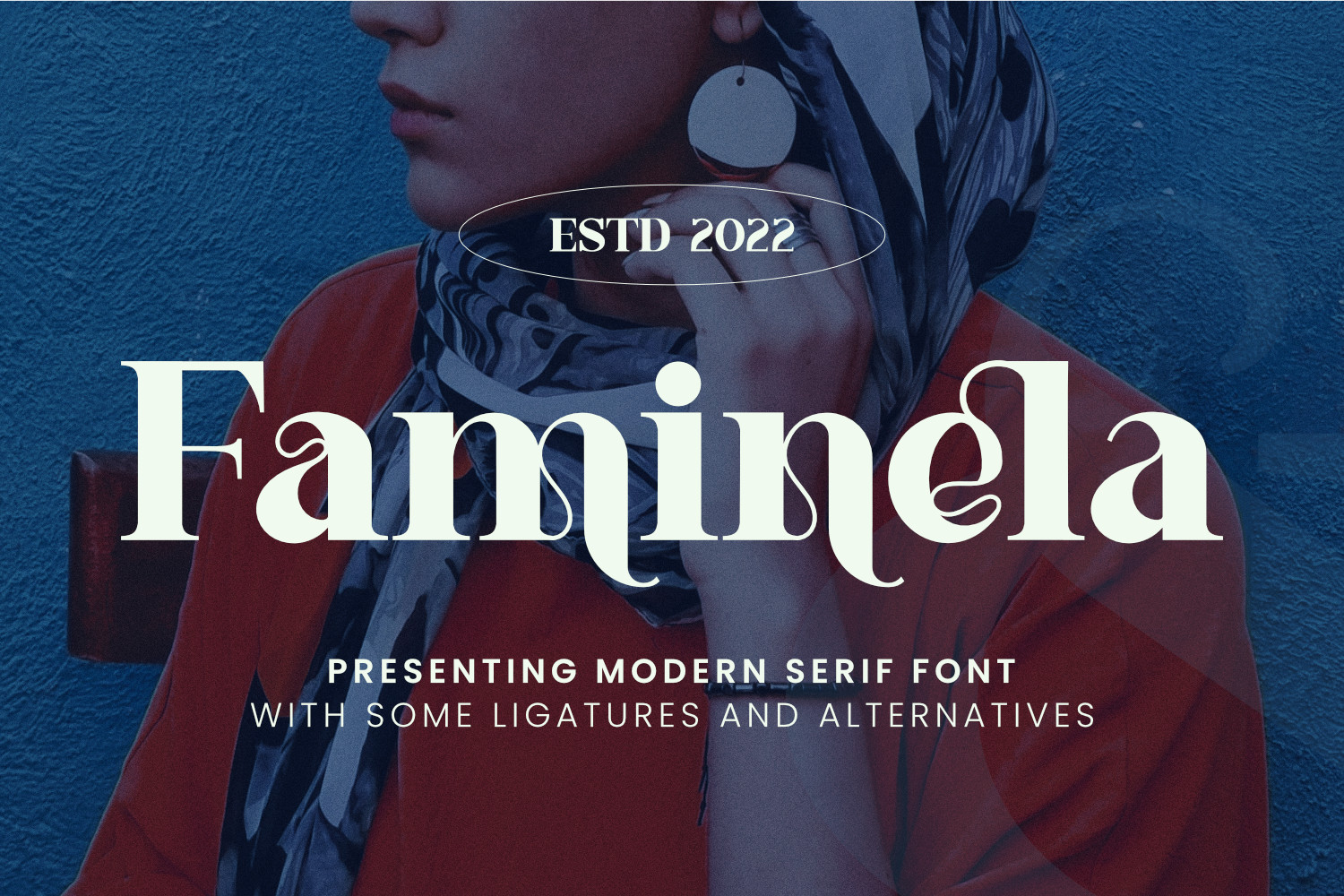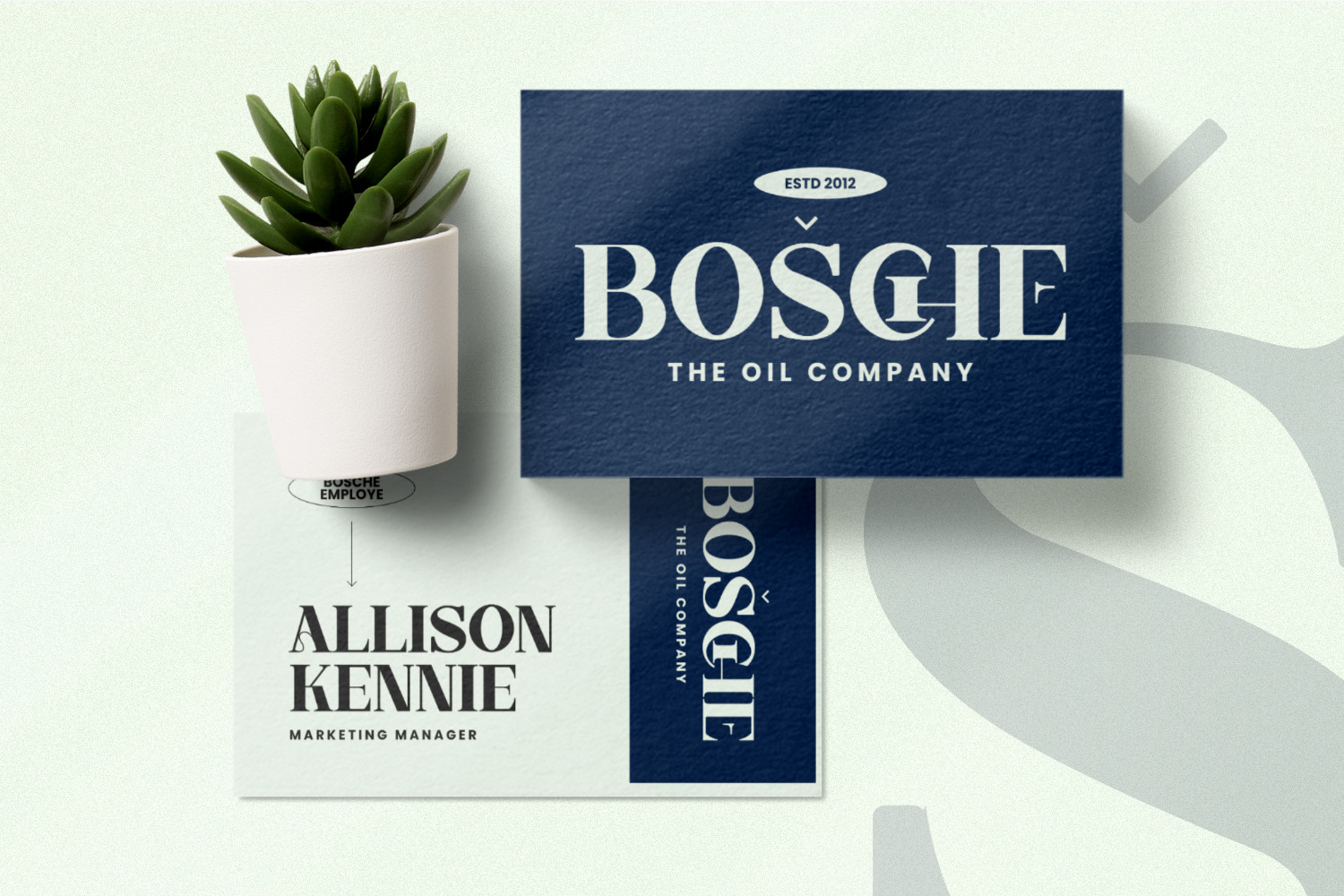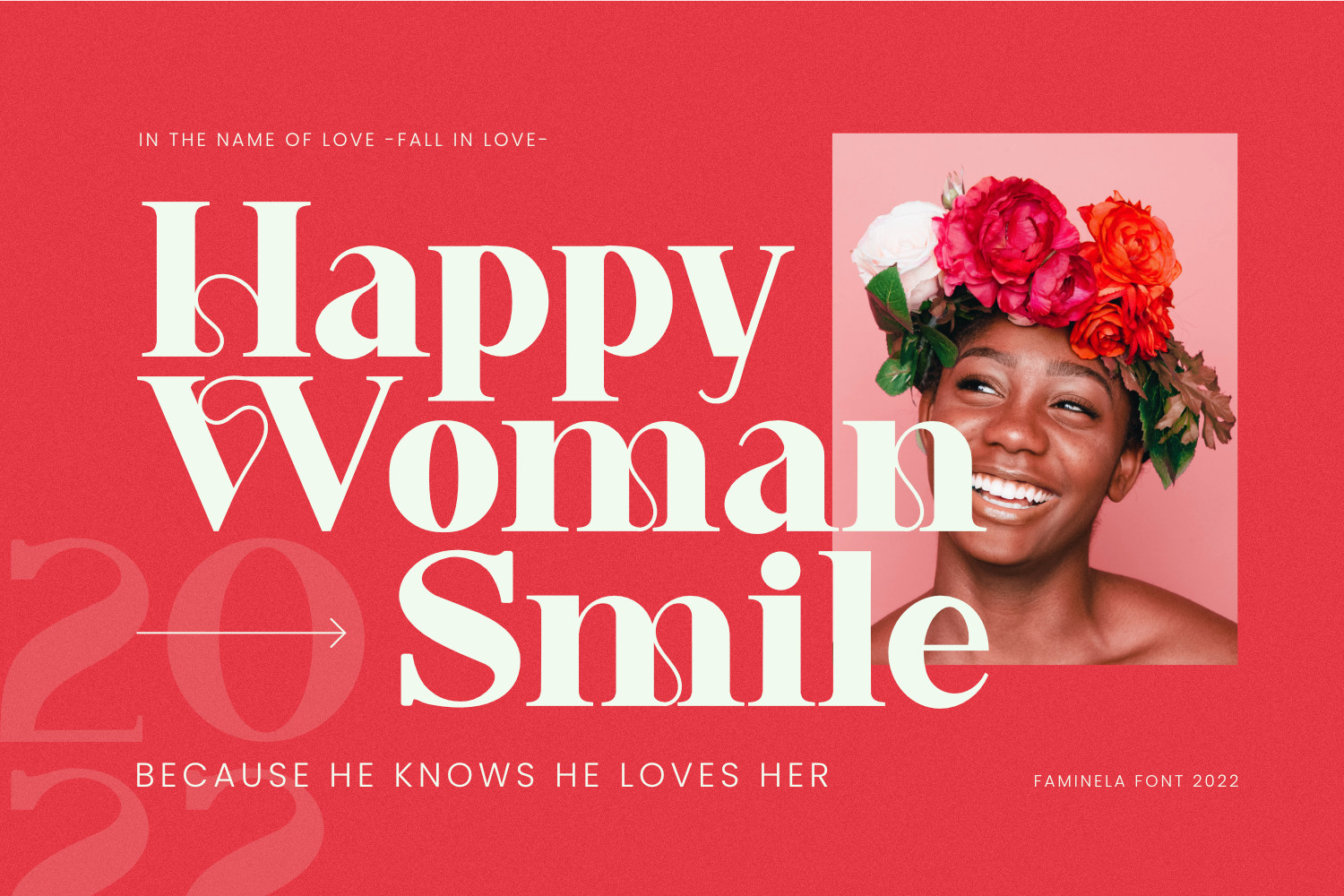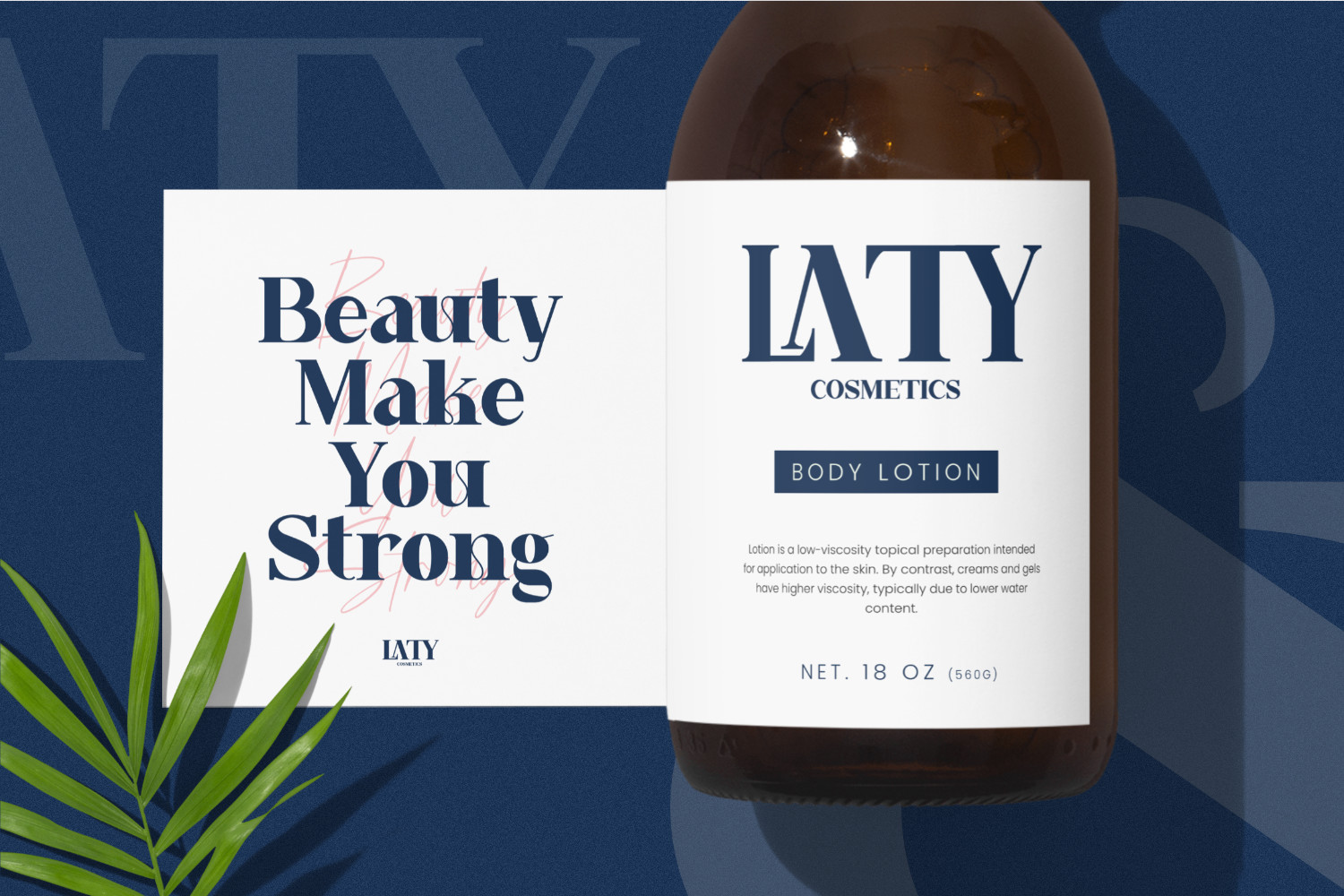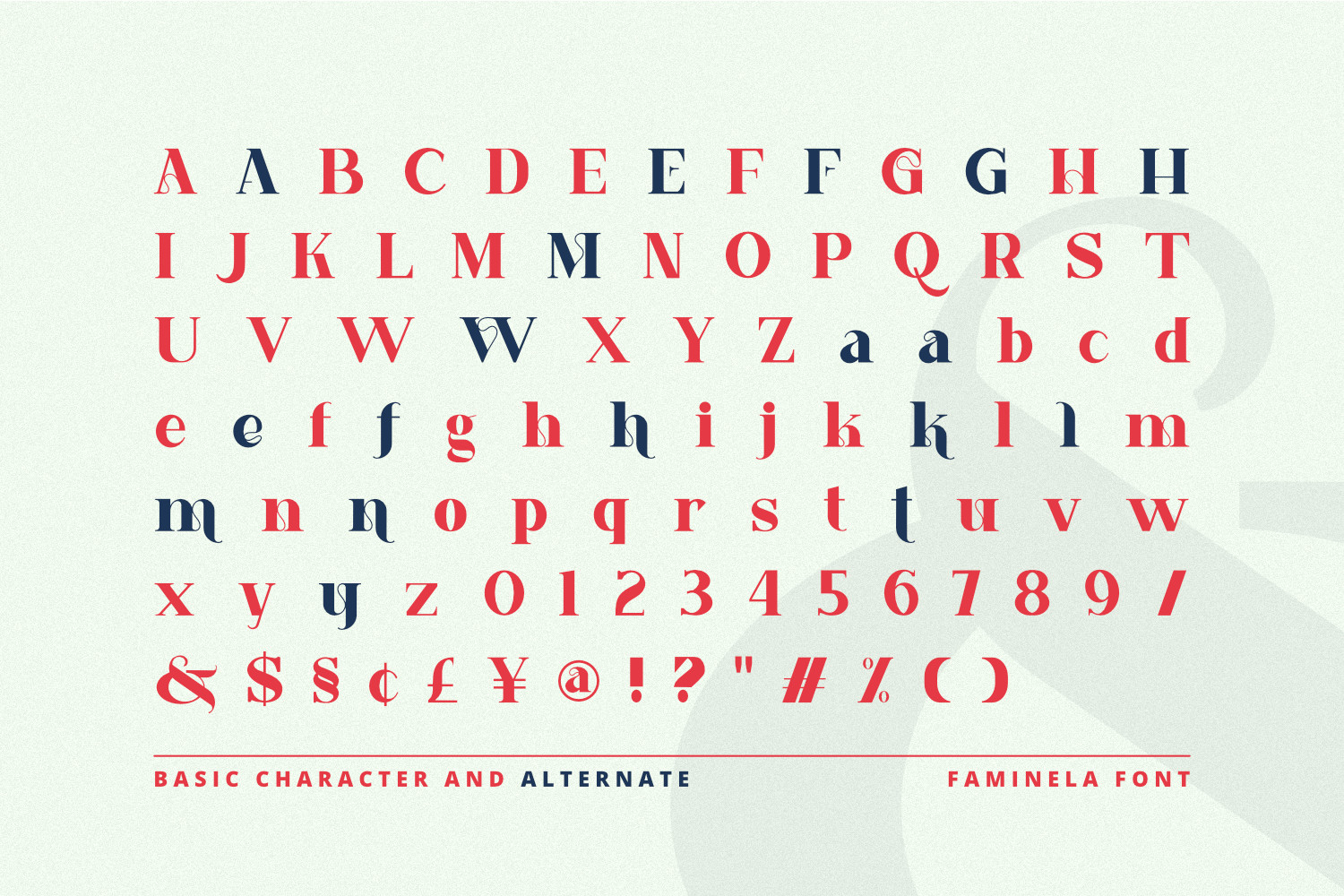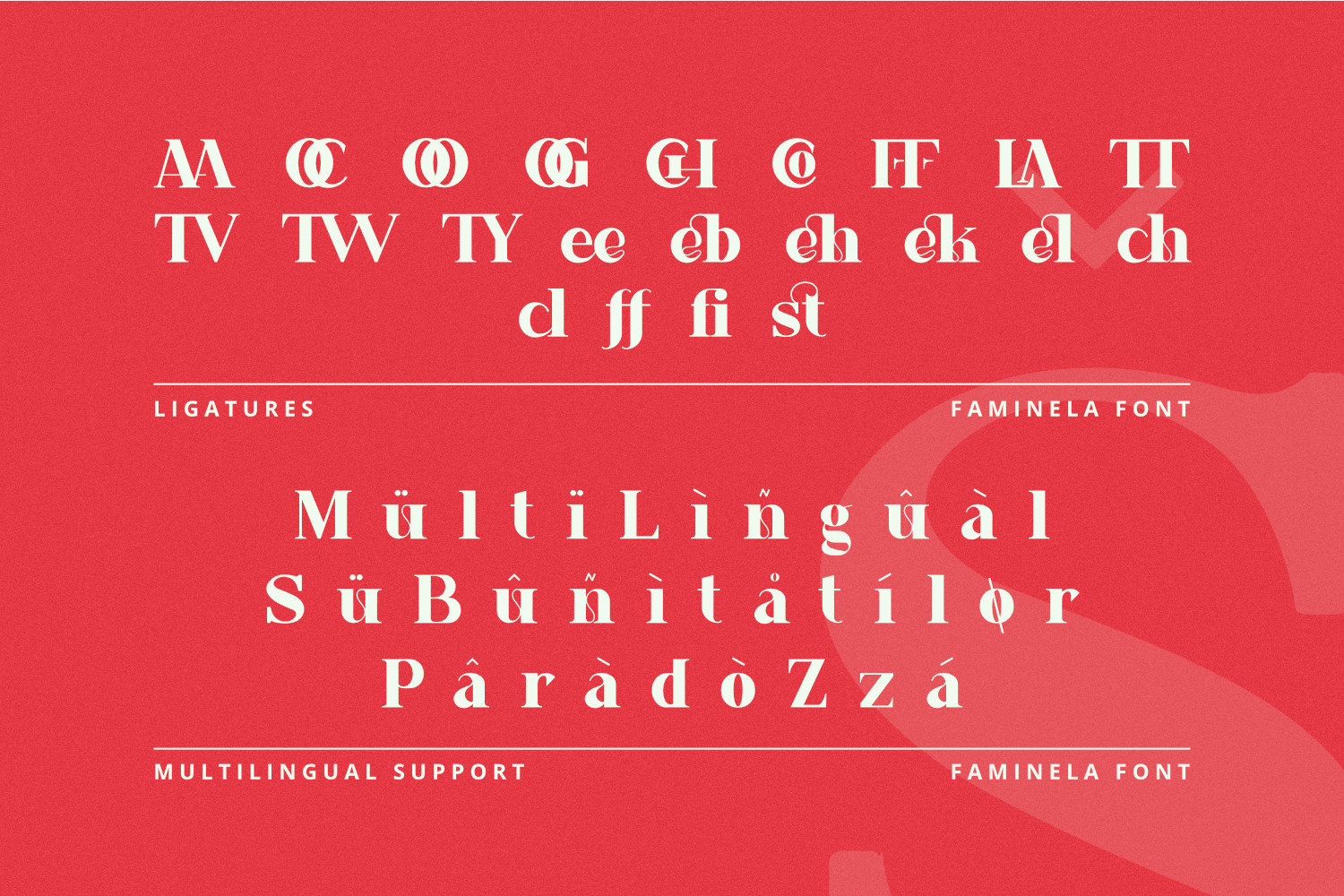
Faminela is a refined modern serif font that blends elegance with expressive personality. Its carefully crafted letterforms combine sharp serifs and soft curves, enhanced with a variety of sophisticated ligatures and alternate characters. Faminela is ideal for editorial designs, branding projects, and packaging that demand a luxurious and feminine touch.
With multilingual support and thoughtfully designed alternates, Faminela empowers designers to create poetic typography with seamless flow. Whether for fashion lookbooks, logo headlines, or graceful invitations, this font delivers an elevated visual experience while retaining a classic editorial feel.